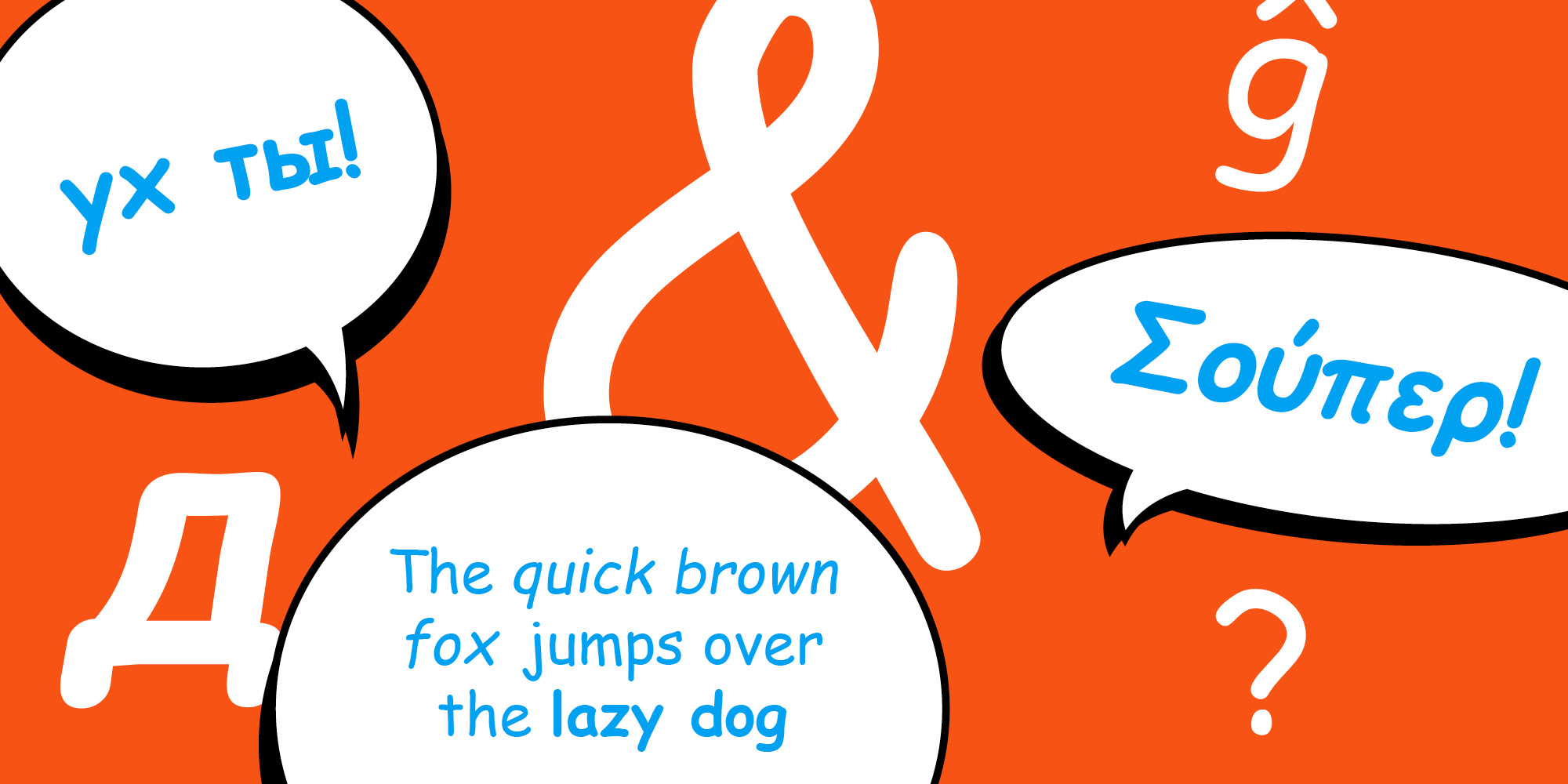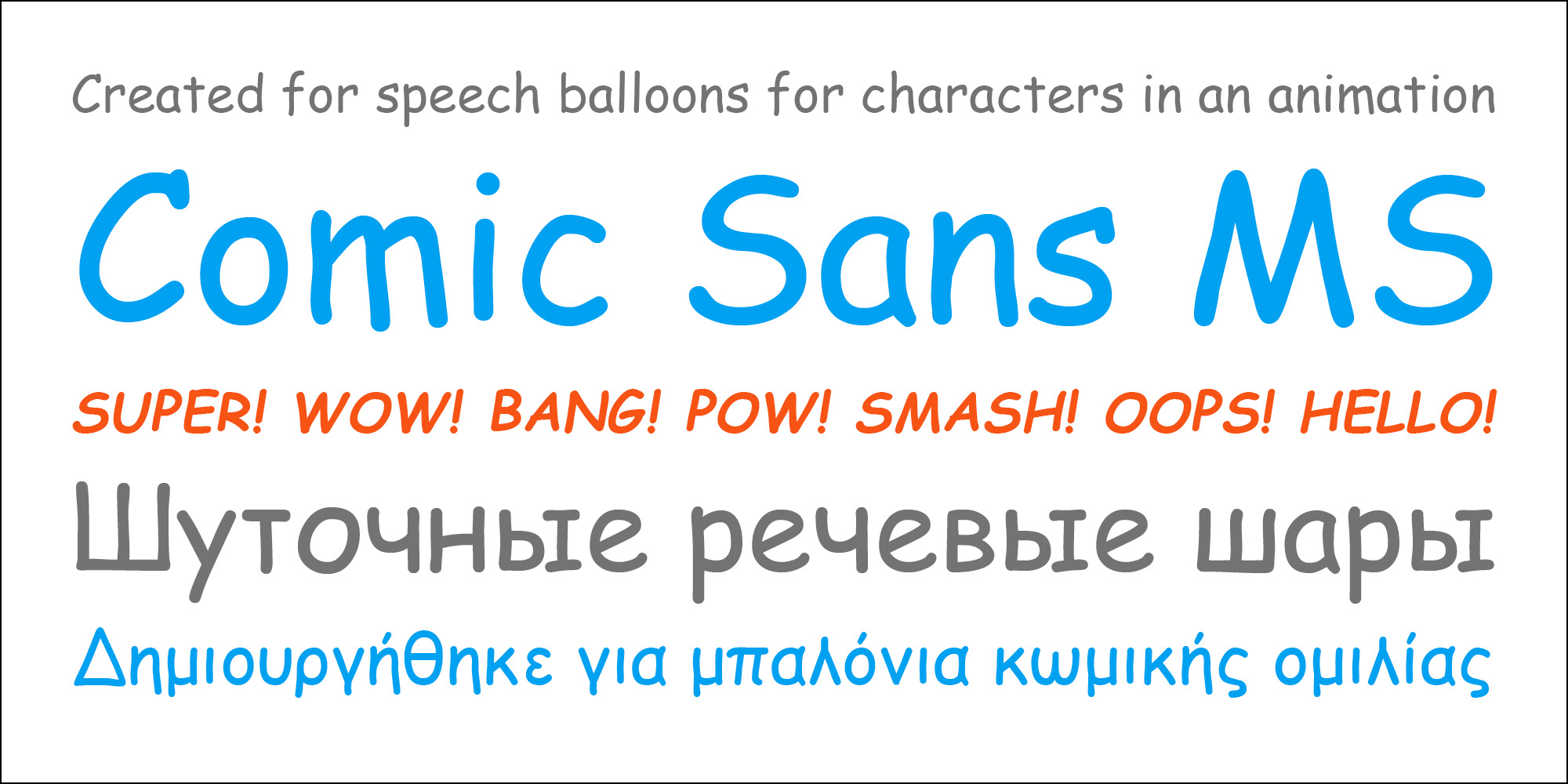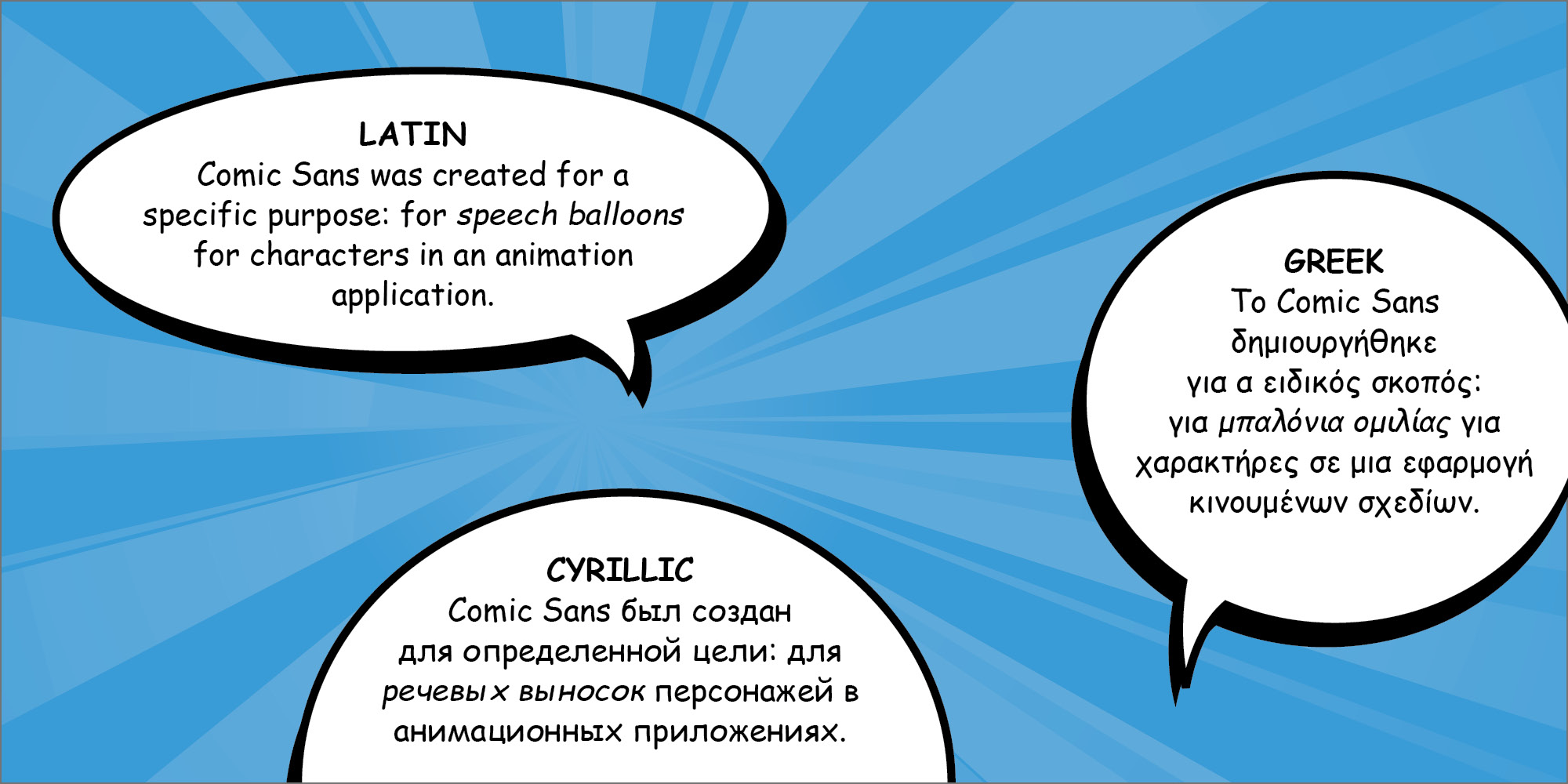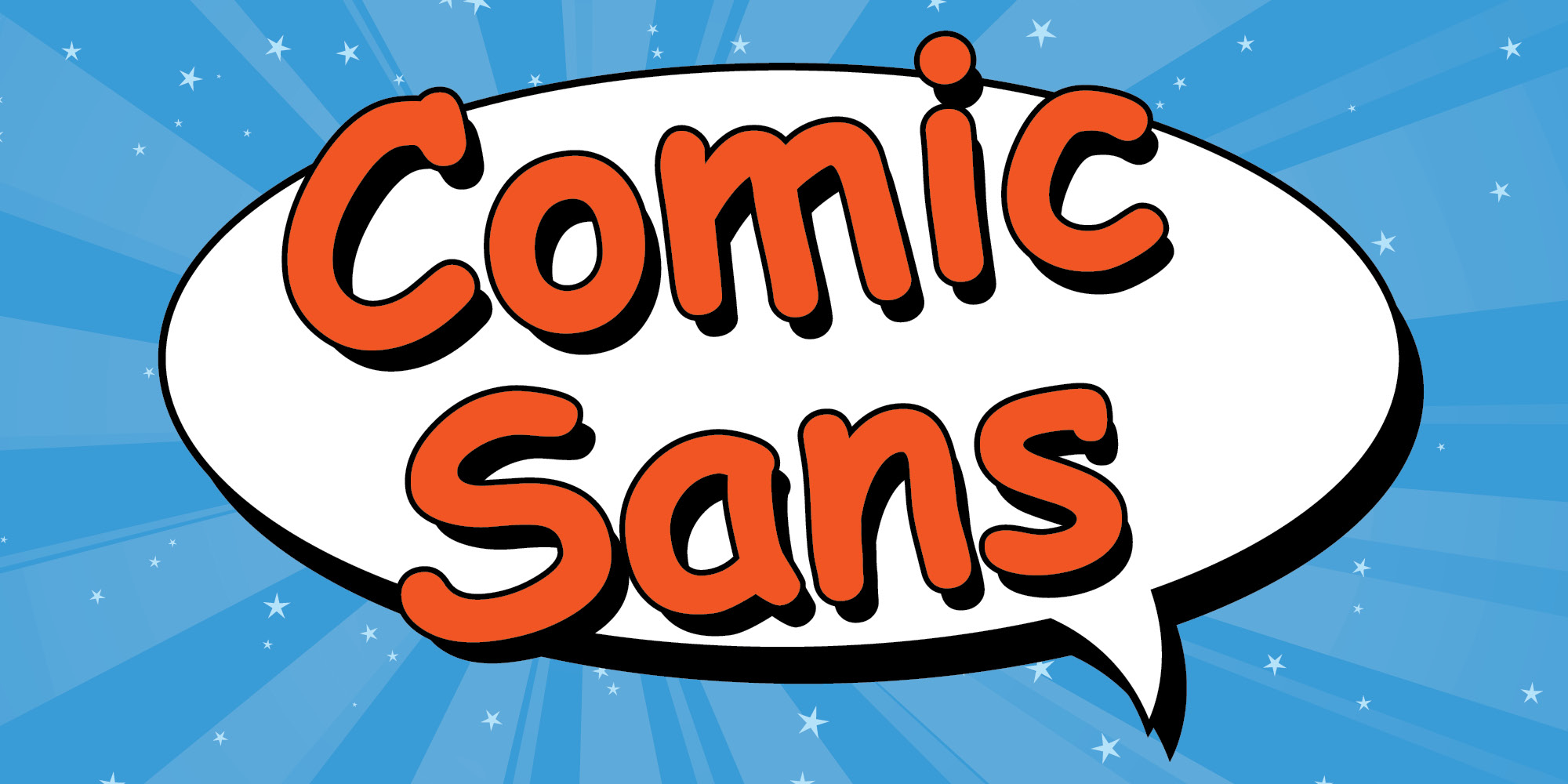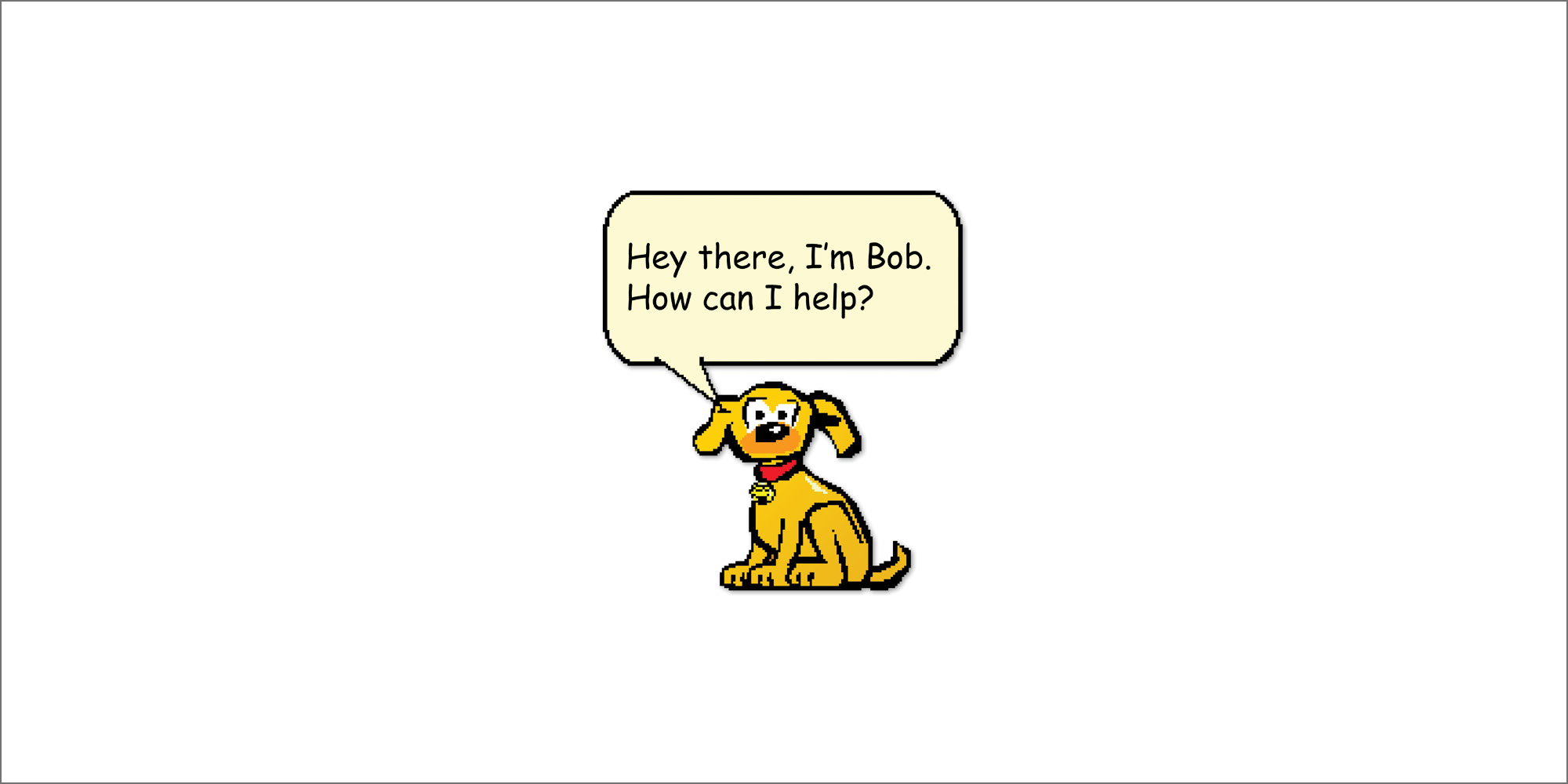
Comic Sans MS is the groovy script font which was first supplied with the Windows 95 Plus! pack. Although it might be seen as a novelty typeface, which is great for titles, it's also extremely readable on-screen at small sizes, making it a useful text face.
A note from Vincent Connare, Comic Sans' designer.
During 1994 I noticed that a large number of cartoon/comic style software titles were under development at Microsoft. As Microsoft Creative Writer had a need for fun fonts, I had an idea to make a lettering script similar to the lettering used by the major comic books.
There was a consistent style used in comics, which was quite unlike the style of lettering you see in newspaper cartoon strips. I also noticed that many people were inappropriately using drafting lettering in comic speech balloons.
I started to make the font in October 1994. Initially it was picked up by the team working on Microsoft 3D Movie Maker for use in speech balloons. As 3D Movie Maker progressed, the programmers added sound so that the characters didn't use balloons. However, the regular weight was still used for help pop-ups and dialog boxes.
Because the regular weight was cleanly hinted for the screen it was also included with the Windows 95 OEM version, the Windows 95 Plus pack, Publisher and Microsoft Internet Explorer. Hope you find the font fun.
Interesting fact - the euro has eyes.
Comic Sans MS version history
Version 2.10 - This version includes some minor table updates, but no new glyphs.
Version 2.00 - Comic Sans version 2.00 was added to our core fonts for the Web page on 4 March 1998. This WGL4 version includes the euro currency symbol.
Version 1.20 - Comic Sans MS version 1.20 was first supplied with Microsoft Internet Explorer 3, and included as one of the original Microsoft core fonts for the Web. This version was also supplied with Internet Explorer 4.
Version 1.10 - This version of Comic Sans MS was supplied with the Windows 95 Plus! pack.
Comic Sans MS